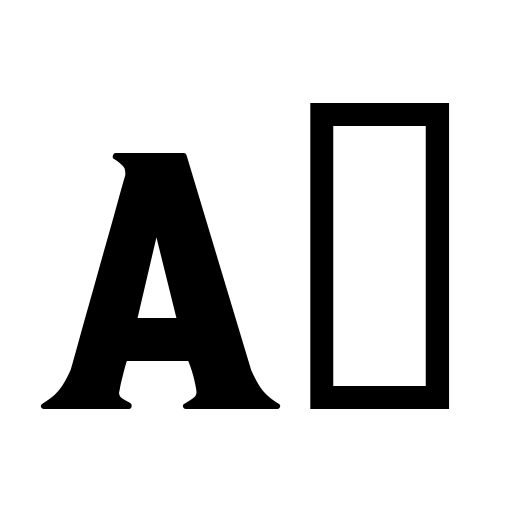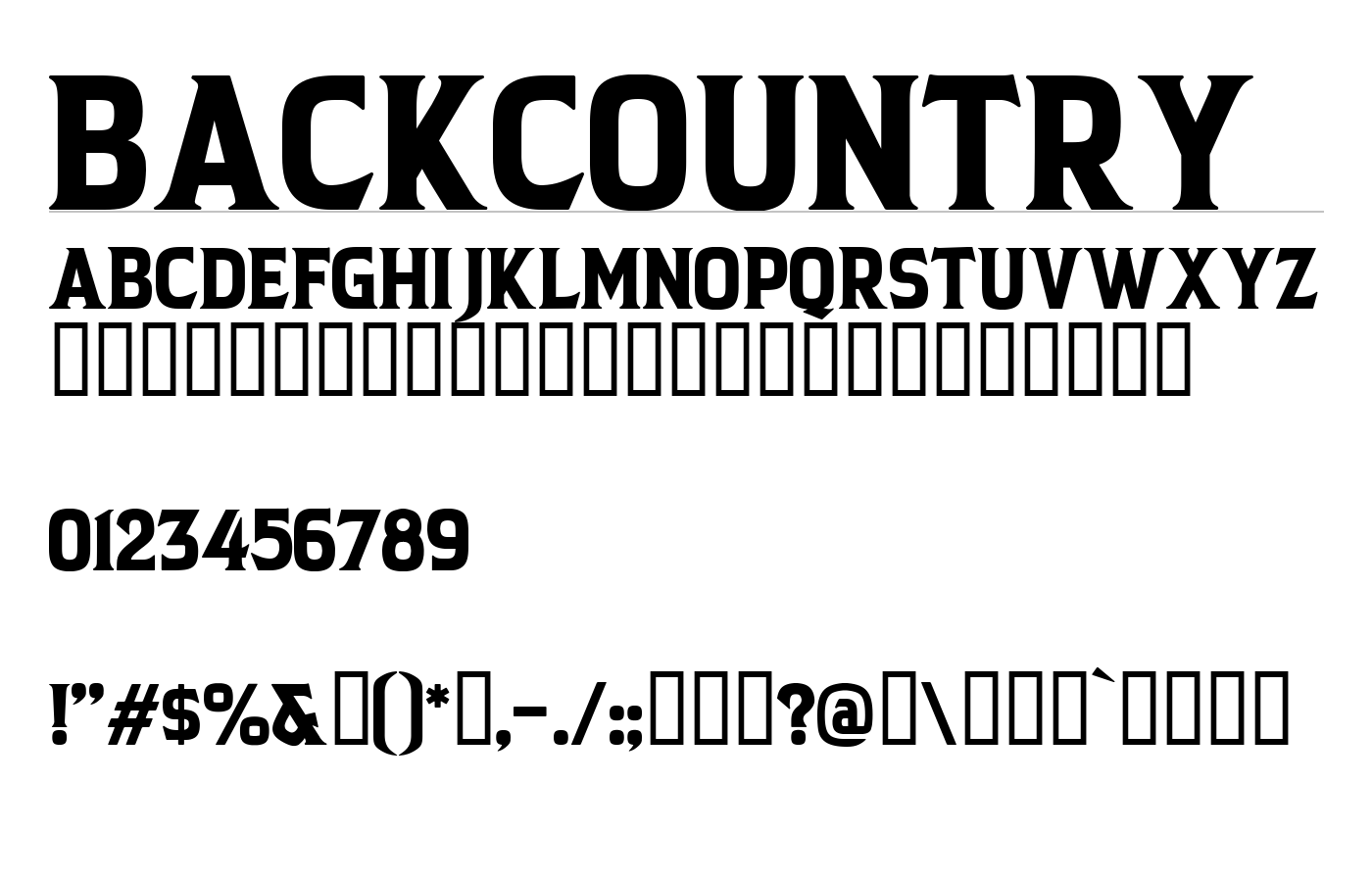
BACKCOUNTRY is a bold slab serif font with strong, slightly condensed letterforms and sharp, bracketed serifs that evoke a rugged, vintage feel. Its high contrast between thick and thin strokes and distinctive details like the angled leg on the R make it ideal for impactful headlines, logos, and branding that require a bold, adventurous character. Perfect for outdoor, sports, or retro-inspired designs, it captures a sense of strength and authenticity.
BACKCOUNTRY Font
About BACKCOUNTRY Font